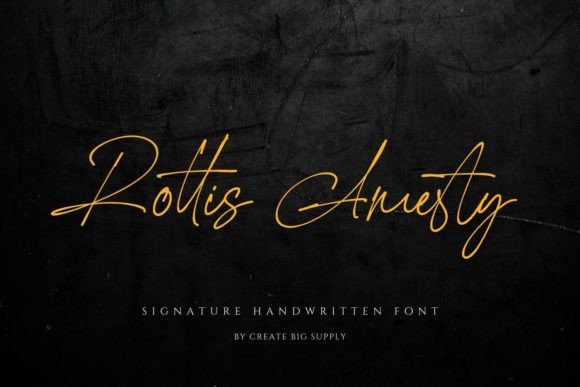
Unleash the allure of authentic handwriting with Rottis Amesty, a captivating signature script font that dances on the page with its innate charm and elegance. Inspired by the art of calligraphy, Rottis Amesty brings a touch of genuine warmth and personality to your creative projects.
Immerse yourself in the natural flow of Rottis Amesty, meticulously crafted to emulate the beauty of real handwriting. Each letter dances across your screen with delicate ballpoint-like effects, creating a sense of intimacy and connection. Whether you're crafting logos, invitations, branding materials, or any endeavor that demands a personal touch, Rottis Amesty rises to the occasion.
As a versatile font, Rottis Amesty effortlessly adapts to a variety of design styles. Its inherent beauty shines through in both formal and casual settings, adding a touch of sophistication to wedding invitations and a dash of whimsy to social media posts. Its compatibility with multilingual scripts ensures that your message resonates with a global audience.
Dive into the depths of Rottis Amesty's character set and discover an array of OpenType features designed to elevate your designs. Explore the intricacies of ligatures and PUA encoding, unlocking a world of creative possibilities. Whether you seek to emphasize a headline or add a splash of flair to your text, Rottis Amesty empowers you to make a statement.